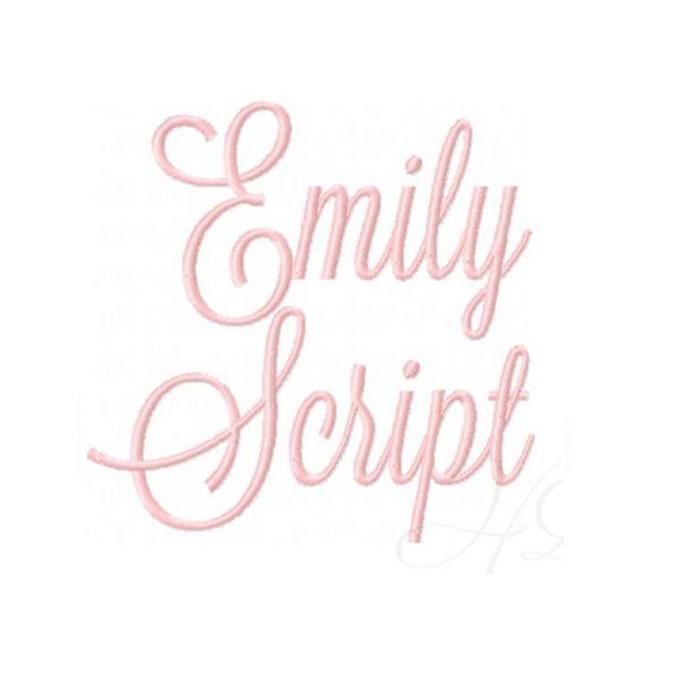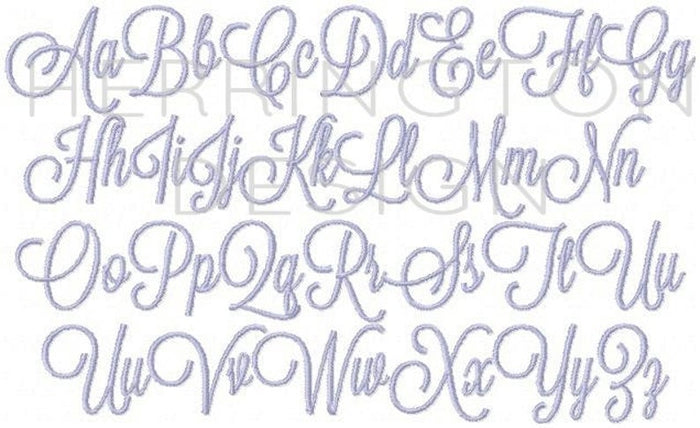
Satin Stitch Emily Script Embroidery Font - 7 Sizes
Elevate your embroidery projects with the Satin Stitch Emily Script Embroidery Font. This comprehensive package includes 7 sizes—1/2", 1", 1.5", 2", 3", 4", and 5"—featuring 52 elegant uppercase and lowercase letters designed for flawless satin stitch results.